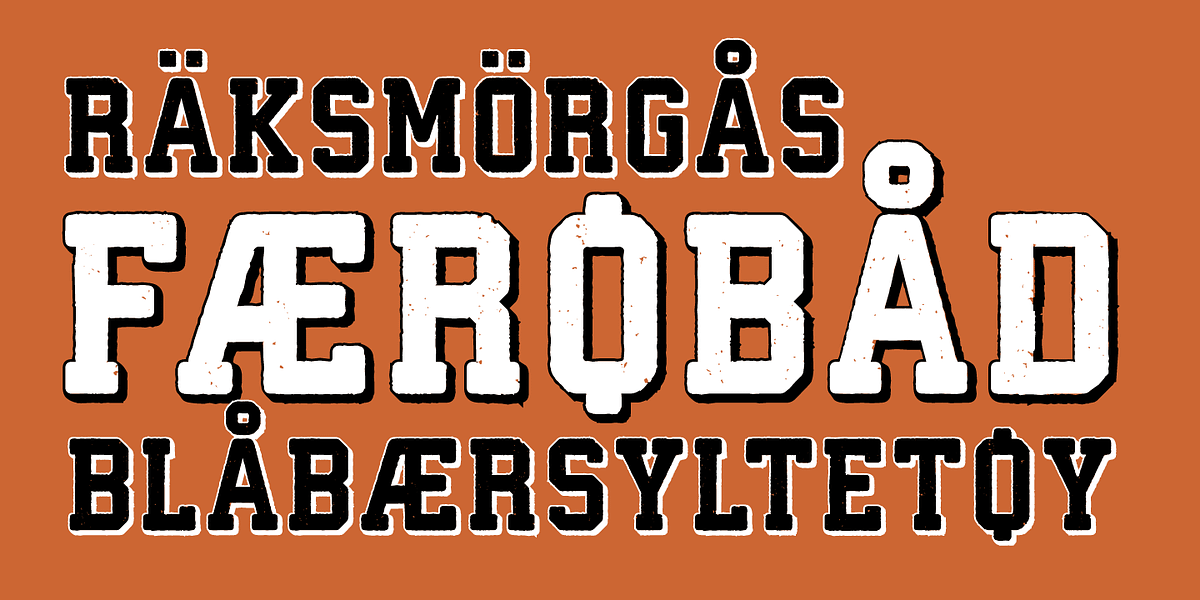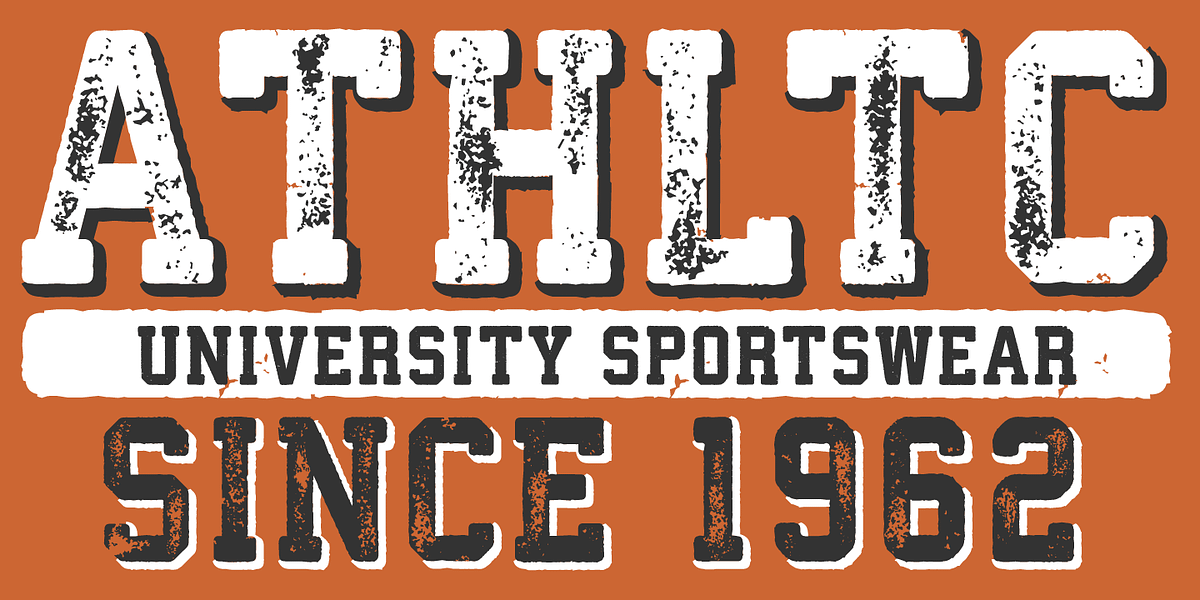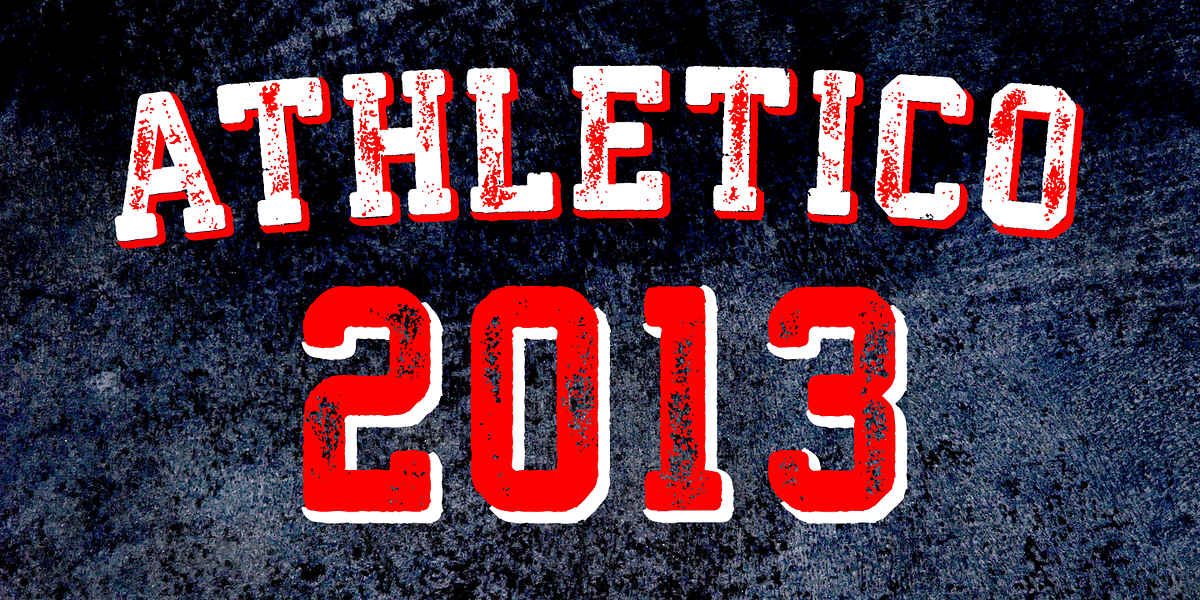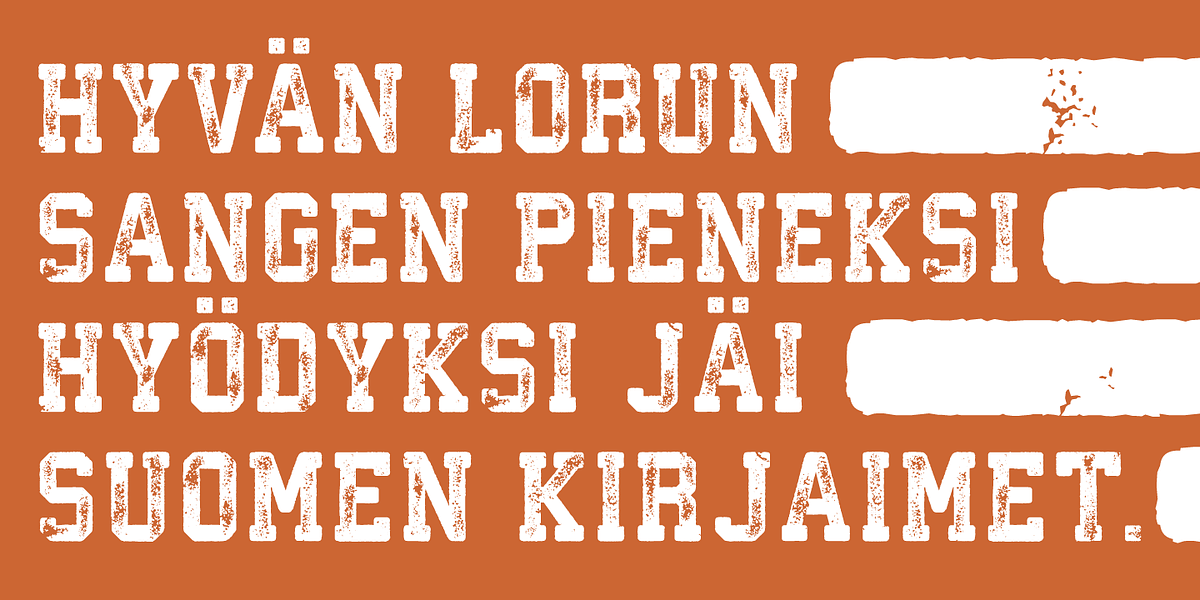
Athletico
Athletico is a layered display slab font designed to evoke the rugged style of college and university sportswear lettering. Its distressed grunge aesthetic, featuring outlines, shadows, embossing, and borders, makes it ideal for attention-grabbing headlines, branding elements, and posters. The font includes support for Western, Central and Eastern European, Baltic, and Turkish languages.